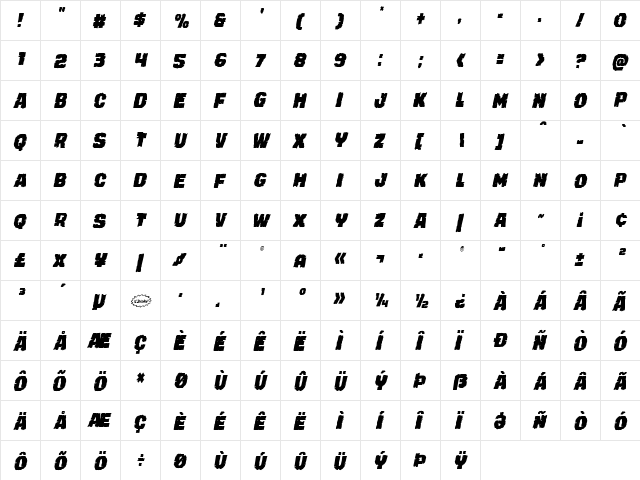
Jugger Rock Condensed Italic Condensed Italic
Design Context for Jugger Rock Condensed Italic Typeface
Jugger Rock Condensed Italic is a composed and adaptable typeface that performs quietly and consistently across a wide range of design contexts. The dynamic lean of this cut emphasises speed and emphasis in any layout. Its narrow stance lets it pack a punch even in space-constrained designs.
Pro Tip: Use Jugger Rock Condensed Italic for emphasis, pull quotes, and subheadings where its slanted energy can add rhythm to the layout.